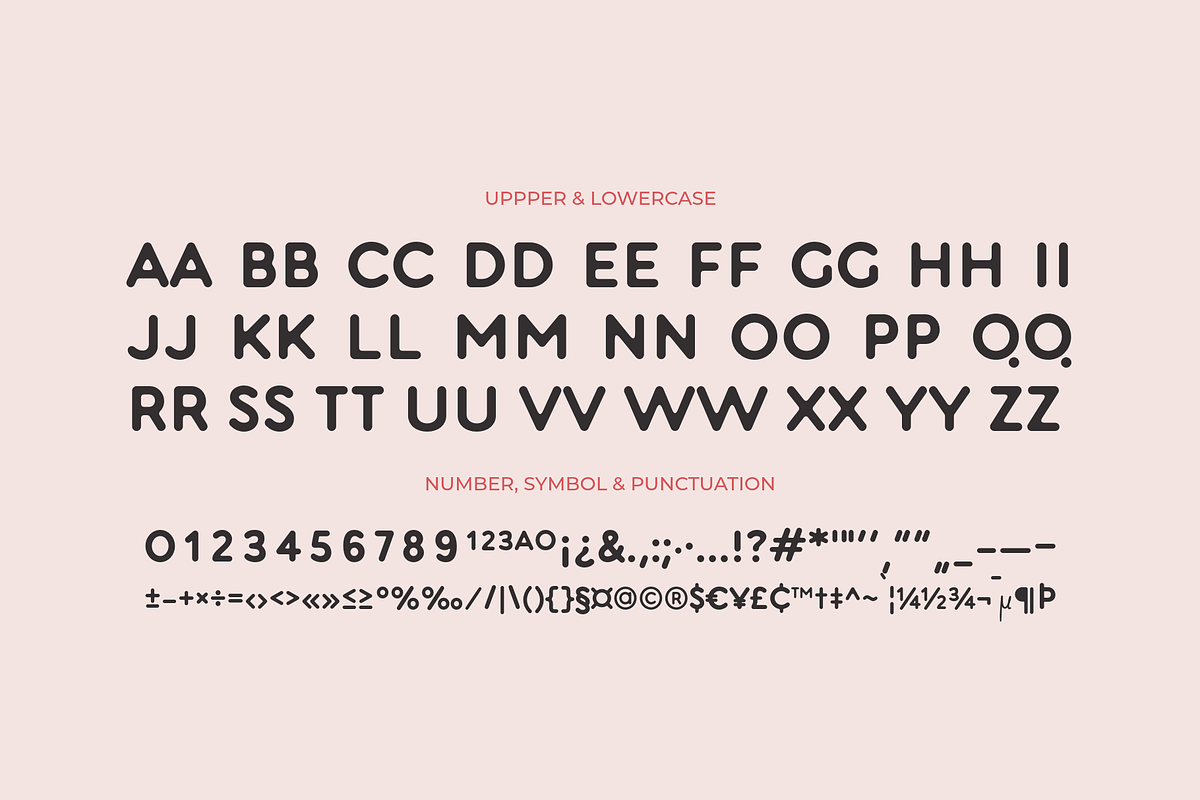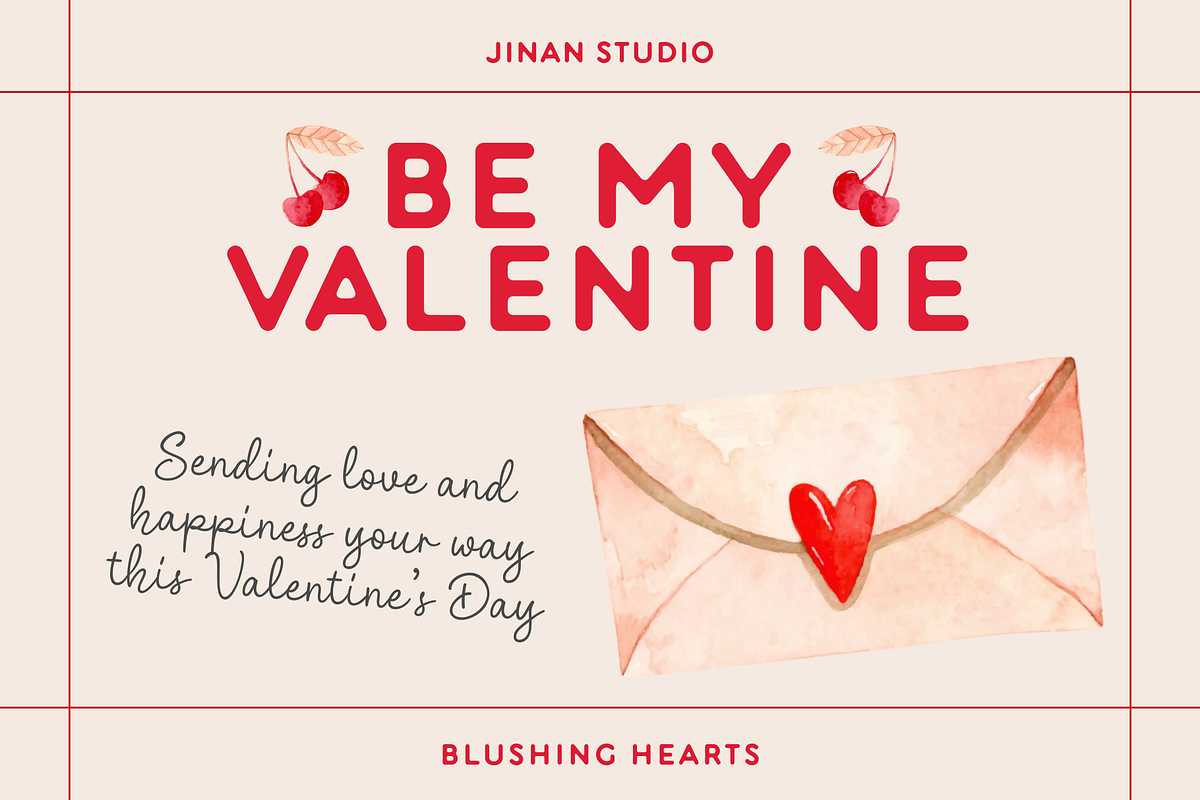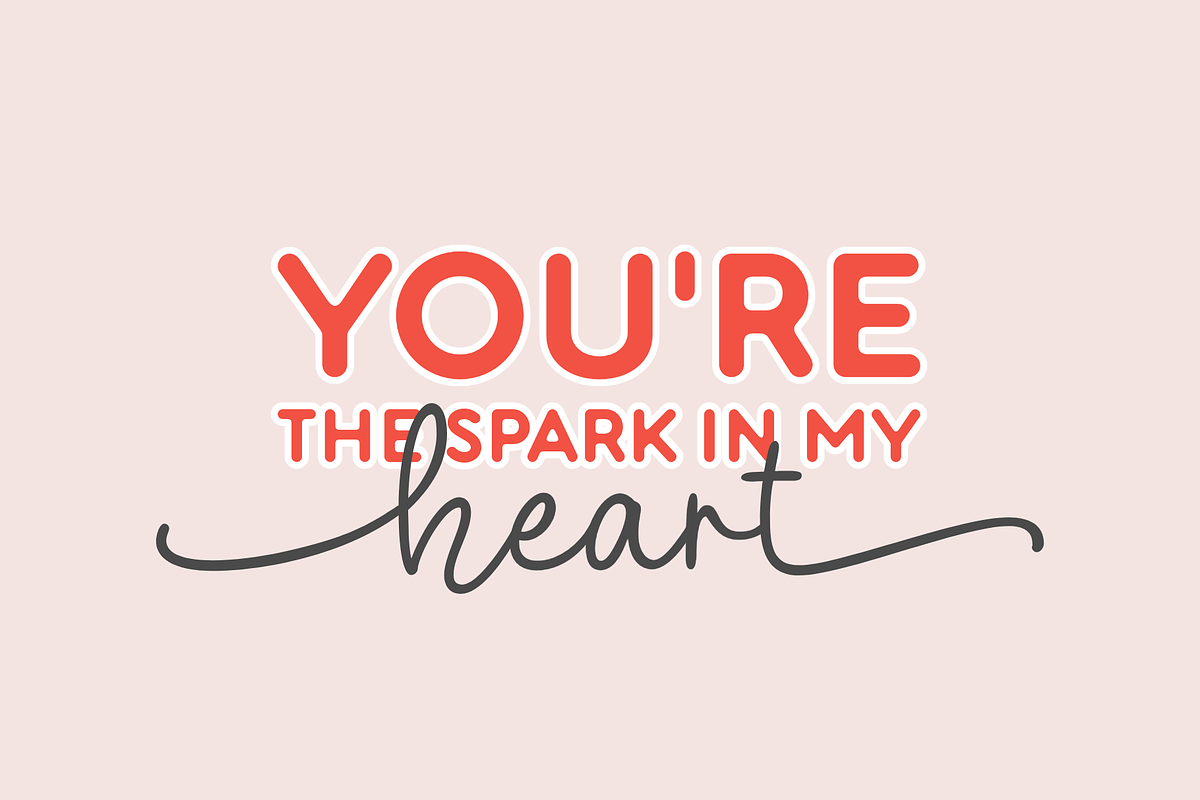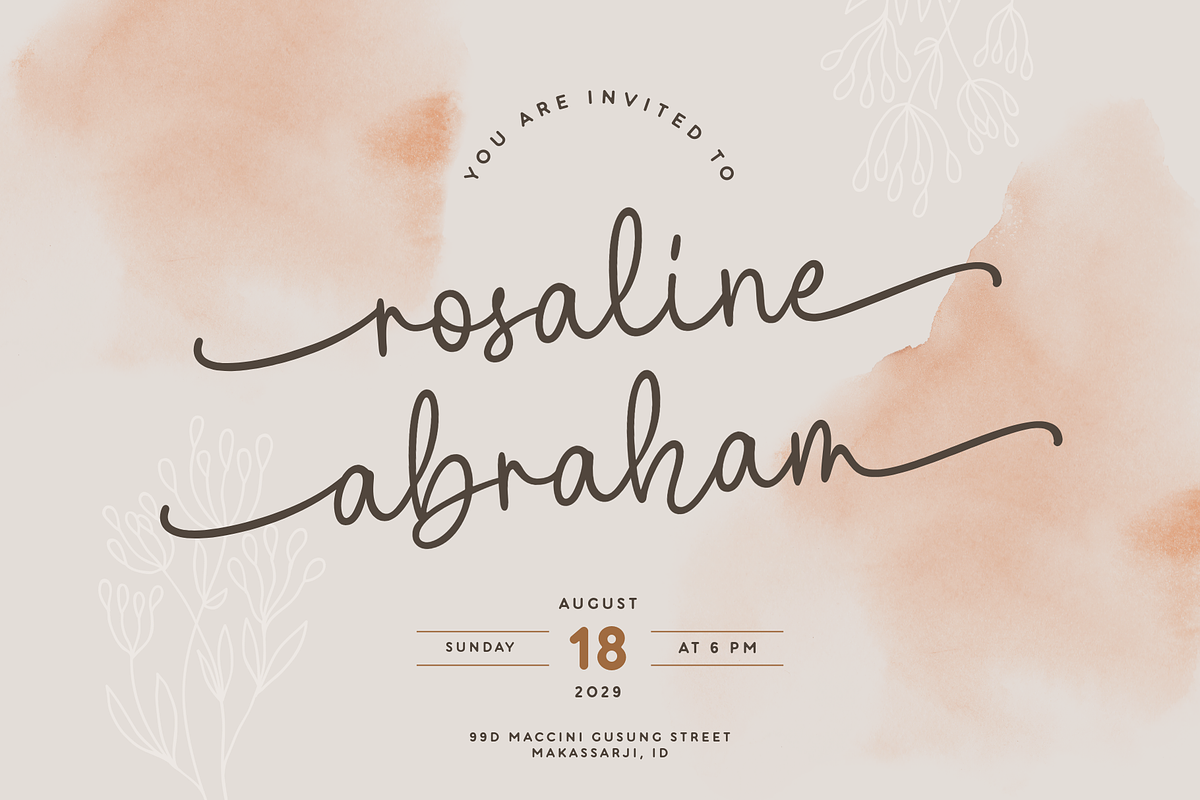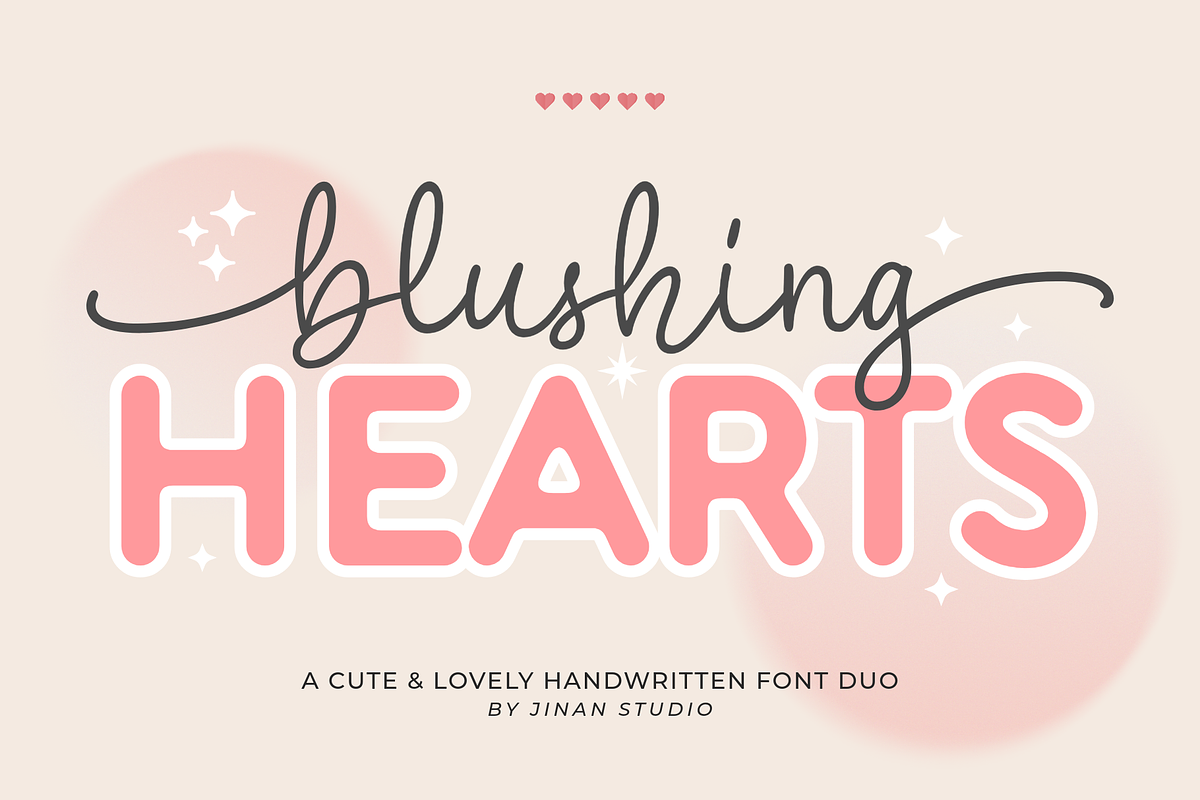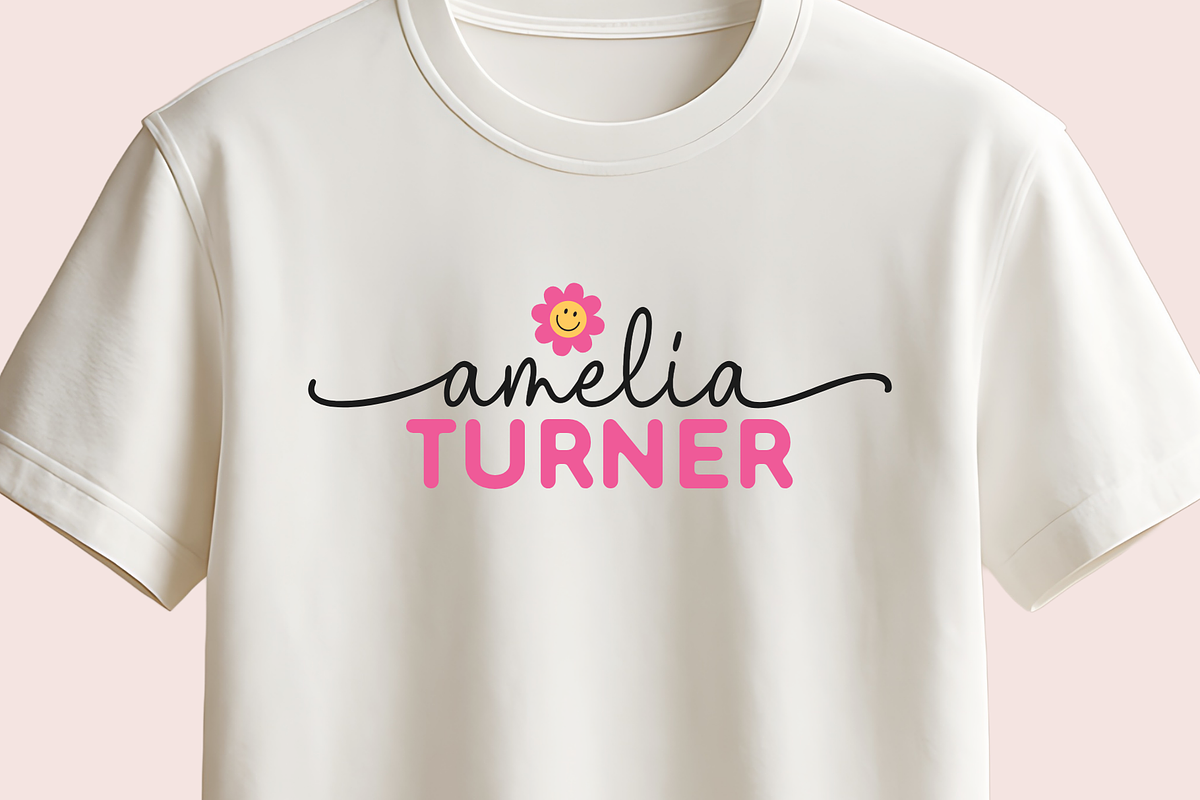
Blushing Hearts - A Font Duo
Blushing Hearts is a cute and romantic Valentine font duo featuring a lovely handwritten script paired with a bold rounded display font. Designed to create warm, sweet, and eye-catching typography, this font duo is perfect for Valentine projects and love-themed designs.
This versatile duo works beautifully for wedding invitations, branding, packaging, greeting cards, social media content, Cricut projects, stickers, apparel, merchandise, and romantic quotes. The script adds a natural handwritten feel, while the bold font gives a playful and lovable impression.
Perfect for designers and crafters looking for a cute Valentine font, romantic typography, or a charming handwritten font combination.
Perfect for: Valentine designs, wedding projects, branding, packaging, social media, greeting cards, stickers, crafts, and merchandise.
Spread love in every design with Blushing Hearts Font Duo.
- A set of uppercase and lowercase glyphs
- Number, symbol, and punctuation